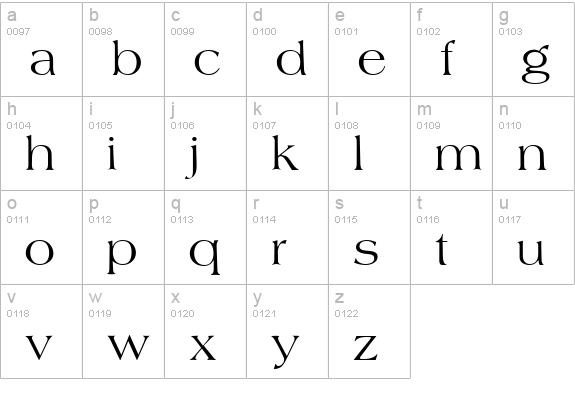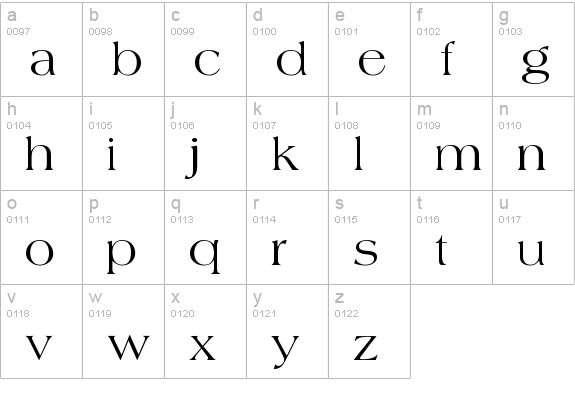
Americana Regular is the standard, neutral variant in the Americana typeface family \xE2\x80\x94 well suited to general body text, paragraphs, and standard typographic work.
Americana Regular is a classic and timeless typeface that exudes a sense of nostalgia and Americana charm. With its clean lines and balanced proportions, this font is versatile and suitable for a wide range of design projects. Whether you're creating vintage-inspired posters, rustic signage, or patriotic branding, Americana Regular delivers a sense of tradition and authenticity. The best part? Americana Regular is available for free download at FontsMarket.com. This means you can easily access and use this beautiful font in your projects without any cost. So why wait? Add a touch of Americana flair to your designs with Americana Regular today!